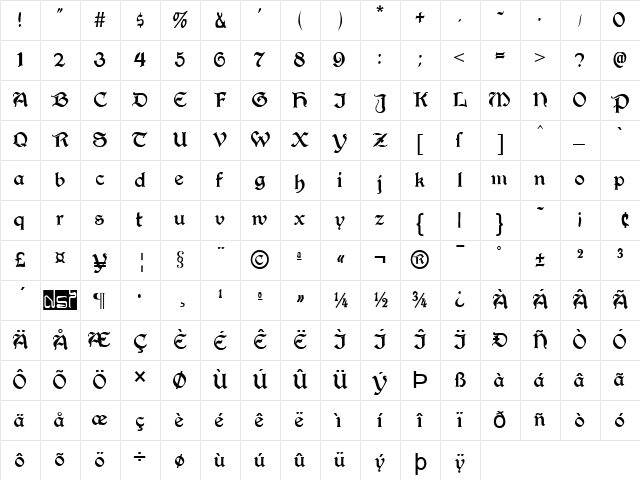
Augusta Regular Free Font
Augusta Regular
Augusta Family
Design Context for Augusta
Augusta is a composed and adaptable typeface that performs quietly and consistently across a wide range of design contexts.